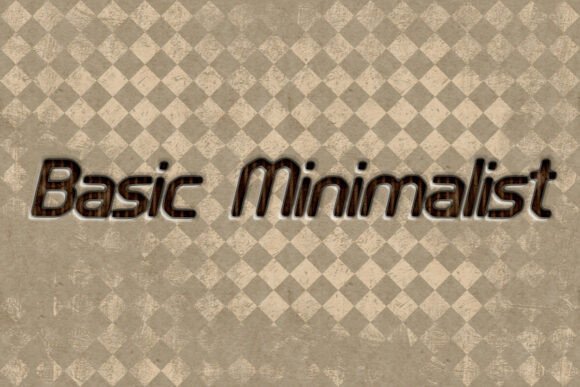
Discover the Art of Simplicity with Basic Minimalist Font
You’ve spent hours perfecting your design, pouring your heart and soul into every detail, but something’s still missing – a touch of understated elegance that sets your work apart. That’s where the Basic Minimalist Font comes in, a masterclass in simplicity that adds sophistication to any medium.
This versatile font is more than just a pretty face; it’s a powerful tool in the hands of designers who crave effortless charm. Whether you’re working on a branding project, creating social media graphics, or designing posters, the Basic Minimalist Font seamlessly elevates your work, adding a hint of personality that resonates with your audience.
Basic Minimalist Font Key Features
- Font Family: Basic Minimalist Font
- Character Set: Supports a wide range of languages, including Latin, Cyrillic, and Greek alphabets
- Unique Characteristics: Clean and minimalist design, with a focus on legibility and simplicity
Designer Review: Basic Minimalist Font
Overall, I think the Basic Minimalist Font has some great qualities that make it a decent choice for certain projects. ✨ One of the things I appreciate about this font is its simplicity. It’s clean, easy to read, and gets the job done. ✨ The font is also highly legible, making it perfect for body text or for use in scenarios where readability is crucial.
Another thing I like about this font is its versatility. ✨ It’s not too ornate or flashy, so it can be used in a variety of contexts without overwhelming the user. This makes it a great choice for designers who want to keep things simple and uncluttered.
While the Basic Minimalist Font has its strengths, there are a few areas where it falls short. ⚠️ One of the biggest limitations is its lack of character. ⚠️ It’s a very basic font, and while simplicity can be a good thing, it can also make it feel a bit bland and uninteresting. ⚠️ Additionally, the font may not be the best choice for projects that require a lot of creativity or flair.
In conclusion, I think the Basic Minimalist Font is a solid choice for designers who prioritize simplicity and readability. While it may not be the most exciting or creative font out there, it gets the job done and is easy to work with.
Pros and Cons
- ✨ Simple and easy to read
- ✨ Highly legible
- ✨ Versatile and easy to use
- ⚠️ Lack of character and personality
- ⚠️ May not be the best choice for creative projects
Tips for Getting the Most Out of the Basic Minimalist Font
Use the Basic Minimalist Font for headings and titles to create a clean and modern look. Pair it with a sans-serif font for body text to create a visually appealing contrast. Experiment with different font sizes and colors to create a unique look.
The Basic Minimalist Font is ideal for:
- Brochures and flyers
- Business cards and letterheads
- Website headers and footers
- Social media graphics and ads
Alternative Fonts for Designers
Inter Font
Inter Font is a clean and modern sans-serif font designed by Rasmus Andersson. It is suitable for digital products, apps, and websites where readability is crucial. Inter Font is more geometric and has a slightly more condensed feel compared to Basic Minimalist Font, making it ideal for small screens and digital interfaces.
Montserrat Font is a popular sans-serif font designed by Julieta Ulanovsky. It is perfect for urban and modern designs, such as logos, branding materials, and editorial content. Montserrat Font is more condensed and has a stronger geometric feel compared to Basic Minimalist Font, making it ideal for headlines and titles.
Nunito Font
Nunito Font is a sans-serif font designed by Vernon Adams. It is suitable for digital and print designs where a clean and modern look is required. Nunito Font is more rounded and has a softer feel compared to Basic Minimalist Font, making it ideal for body text and paragraphs.
Is Basic Minimalist Font available in different font weights?
Yes, Basic Minimalist Font is available in three font weights: Light, Regular, and Bold. These weights allow you to add depth and hierarchy to your typography, making it easier to communicate complex information. You can use the different font weights to create visual interest and emphasis in your design.